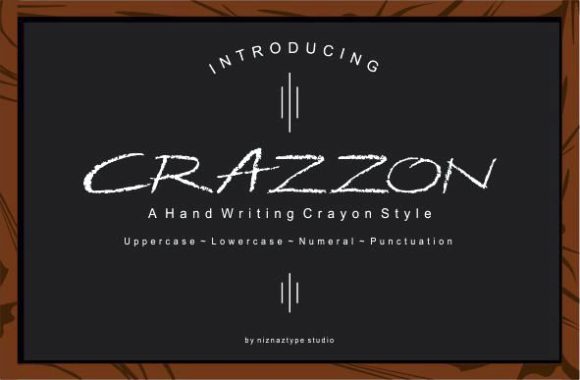
Crazzon Font
Introducing Crazzon Font: A Handcrafted Script Font with a Lively Charm
Dive into the world of creativity with Crazzon Font, a captivating script font with a playful and vibrant personality. Inspired by the charm of handwritten notes, Crazzon exudes a sense of childlike wonder and authenticity. Every stroke and curve of this whimsical font is meticulously crafted, bringing a unique touch to your designs.
Whether you're crafting eye-catching posters, designing playful t-shirts, creating vibrant flyers or adding a touch of whimsy to your kids' designs, Crazzon Font is your perfect companion. Its unique handwritten style, reminiscent of crayon pencil drawings, adds a personal touch to your creations, making them stand out from the crowd.
Step into a Realm of Endless Creative Possibilities
With Crazzon Font, your imagination is the only limit. Unleash your creativity and let your designs take center stage. Effortlessly create mesmerizing comics that transport readers to fantastical worlds or design enchanting posters that capture the hearts of your audience.
Transform ordinary flyers into extraordinary works of art, captivating the attention of potential customers. With Crazzon Font, your t-shirts will become walking billboards, spreading joy and individuality wherever you go. And for the little ones, Crazzon Font is the perfect choice for creating magical invitations, personalized greeting cards, and enchanting storybooks that ignite their imaginations.
Ignite Your Passion with Crazzon Font
Embark on a creative journey with Crazzon Font and experience the joy of bringing your ideas to life. Let your designs shine with a unique and captivating charm. Crazzon Font is more than just a font; it's a gateway to a world of boundless creativity and self-expression.